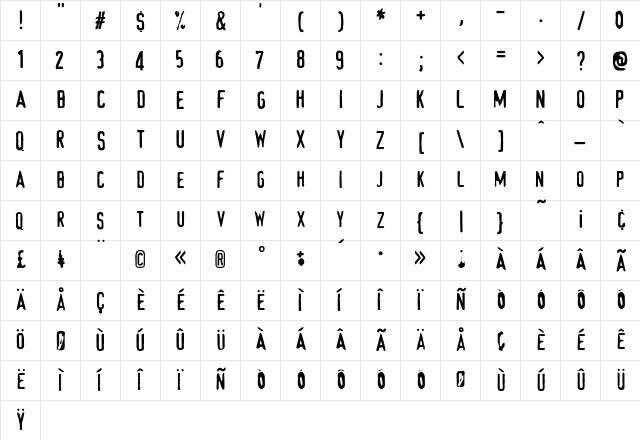
Jorgansen Regular
Design Context for Jorgansen Typeface
Jorgansen takes a measured approach to typography — its balanced proportions and neutral character make it a reliable workhorse for both digital and print work.